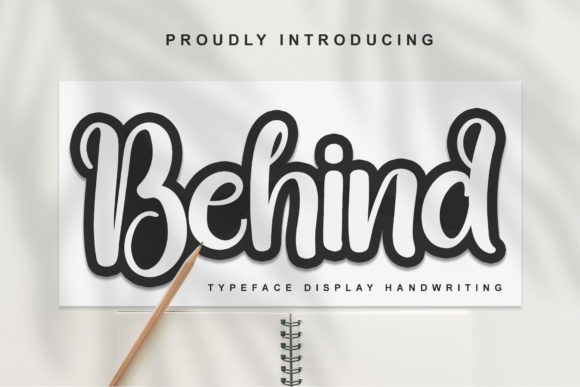
Welcome to the world of Behind, the ultimate display font for anyone looking to add an extra layer of personality to their creative projects! Created by YanStudio, Behind is the perfect blend of boldness and simplicity, making it an ideal choice for anyone in search of the best fonts for school notes.
With its chunky lettering and natural curves, Behind is a versatile display font that can match any of your creative ideas. Whether you're working on a poster, a book cover, or even a logo, Behind is the perfect choice to make your project stand out. This font is perfect for designers, artists, writers, and students who are looking for a font that is both unique and captivating.
If you're in search of a font that can help you express your creativity in the best way possible, then Behind is the perfect choice for you. This font is perfect for anyone who wants to add a touch of personality and charm to their designs. With its eye-catching style and emotional appeal, Behind will help you create designs that are not just beautiful but also unforgettable.